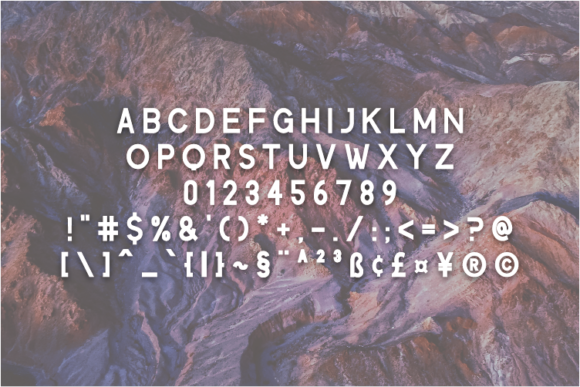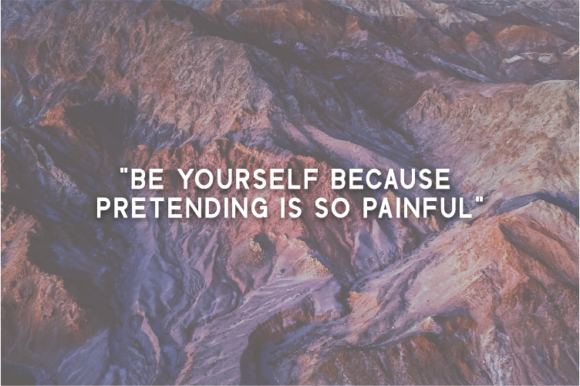
Introduction to Murthie Font
Have you ever been in the middle of a creative project, staring at a blank canvas, and suddenly you stumble upon the perfect font that brings your design to life? For designers, finding the right font can be a game-changer. It’s that moment when everything falls into place, and your vision starts to take shape. Today, we’re excited to introduce you to the Murthie Font, a minimal and neat sans serif font that’s sure to elevate your creative project.
The Murthie Font is a high-quality design resource that offers a transparent background, making it perfect for any project that requires a clean and modern look. Whether you’re working on a logo, brochure, or website, this font is sure to impress. And the best part? It’s available for free download, making it an invaluable addition to any designer’s toolkit.
- High-quality design resource ideal for creative projects, including digital art, graphic design, and more.
- Unique, hand-drawn style with a transparent background, allowing for easy layering and customization in creative projects.
- Optimized for high-resolution displays, ensuring crisp and clear typography even at large sizes.
- Perfect for use in a variety of creative projects, including logos, branding materials, and editorial content.
- Includes a comprehensive character set, covering a wide range of languages and accents.
Honest Review: Murthie Font
As a designer, I’m always on the lookout for high-quality design resources to elevate my creative projects. Recently, I came across the Murthie Font, and I was impressed by its unique character and versatility.
- The Murthie Font has a modern, elegant design that is perfect for headings and titles.
- The font is highly legible, even with a transparent background, which makes it ideal for creating eye-catching graphics.
- The font family includes multiple weights and styles, offering a wide range of creative possibilities.
- The font may not be suitable for large blocks of text, as it can become difficult to read at smaller sizes.
- The font family is relatively small, which may limit its use in complex design projects.
Overall, the Murthie Font is a great addition to any designer’s toolkit. Its unique design and high quality make it an excellent choice for creative projects, and its free download option makes it accessible to designers of all levels.
Designing with Murthie Font
Tips for Getting the Most Out of Murthie Font
To get the most out of Murthie Font, use it in conjunction with other high-quality design resources, such as images and graphics. You can also experiment with different font sizes, colors, and styles to create a unique and visually appealing design.
Common Use Cases for Murthie Font
Murthie Font is ideal for a variety of creative projects, including logos, business cards, and presentations. It’s also a great choice for web design, as it’s available for free download and can be used with a transparent background to create a seamless design experience.
Alternatives to Murthie Font
1. Lato Font
Lato is a high-quality, sans-serif font ideal for creative projects that require a clean and modern design. It’s available for free download and can be used with a transparent background. When to use: For modern websites, mobile apps, or any project that demands a sleek and contemporary look. Comparison: Lato has a more minimalist design compared to Murthie Font, which has a more ornate feel.
Q: Does the Murthie Font have a transparent background?
No, the Murthie Font does not have a transparent background. It’s a solid-colored font designed for use on a variety of backgrounds, and its high-quality design ensures it will look great on any surface.